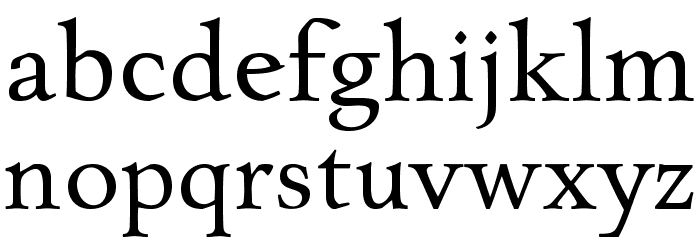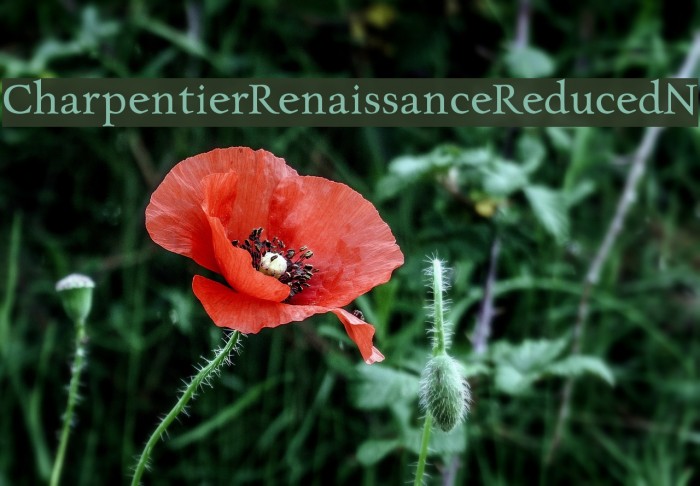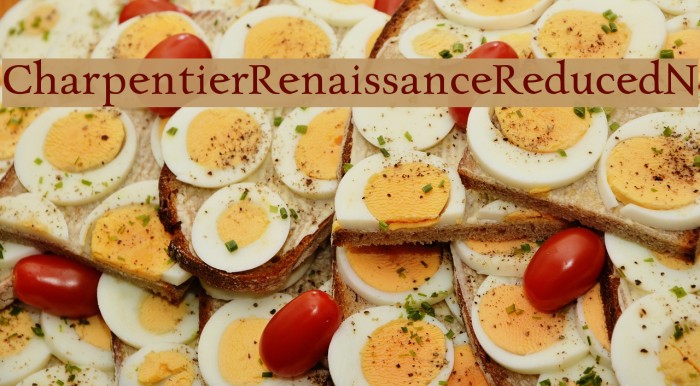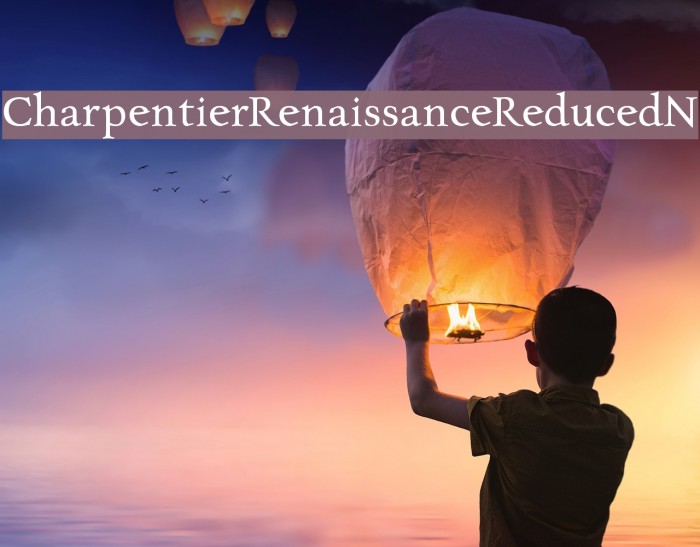
CharpentierRenaissanceReduced-N Font
This font embodies a classic serif style with elegant, traditional features reminiscent of Renaissance typography. The characters exhibit a refined balance between thick and thin strokes, providing a medium contrast that enhances readability while maintaining a sophisticated appearance. The serifs are pronounced yet graceful, contributing to a timeless aesthetic. The uppercase letters are stately and well-proportioned, while the lowercase letters maintain a harmonious flow. The numerals and special characters are designed with the same attention to detail, ensuring consistency across all glyphs.
A classic serif font with medium contrast and elegant, traditional features.
- Proposed Projects: Ideal for projects that require a touch of elegance and tradition, such as book covers, formal invitations, historical documents, or branding for luxury products.
- Overall Style: Classic